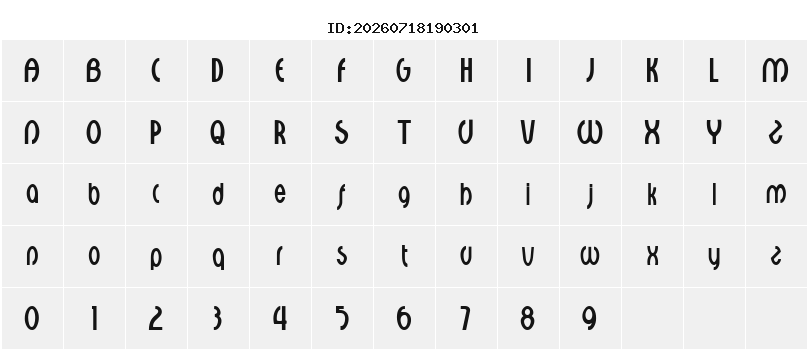
• Font Name: Croix
• Full Font Name: Croix Regular
Croix.ttf is a modern, elegant sans-serif font designed for ultimate readability and visual harmony. Perfect for branding, headlines, web design, and print materials.